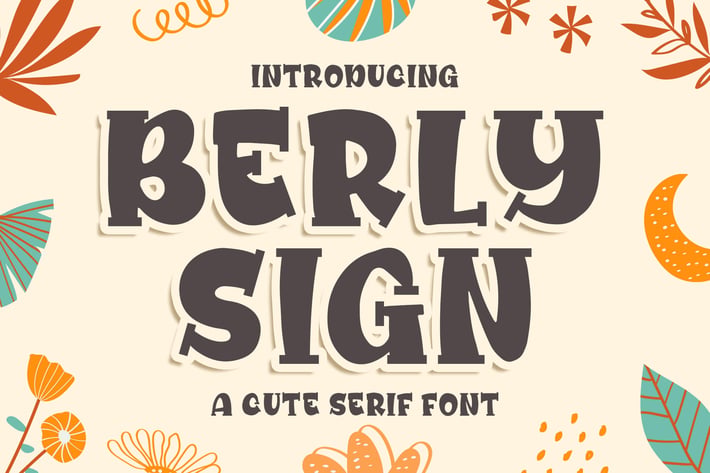
Berly Sign - a Cute Serif Font
Introducing of our new product the name is Berly Sign a Cute Serif Font. Berly Sign inspired by bouncy serif style this font is a fun theme very good for display, wedding, kids, valentine theme, logotype and etc
MULTILINGUAL ACCENT :
ØÆøæ¢ÐŒœÁĂÂÀÄĄÅÃǼĆČÇĈĊĎÉĔĚÊËĖÈĘĞĜĢĠĤÍĬÎÏİÌĮĨĴĶĹĽĻĿŃŇŅÑÓŎÔÖÒŐǾÕŔŘŖŚŠŞŜȘŤŢÚŬÛÜÙŰŲŮŨẂŴẄẀÝŶŸỲŹŽŻáăâäàąåãǽćčçĉċďéĕěêëėèęğĝģġĥíîïìįĩĵķĺľļŀńʼnňņñóŏôöòőǿõŕřŗśšşŝșťţŭûüűùųůũẃŵẅẁýŷÿỳźžż